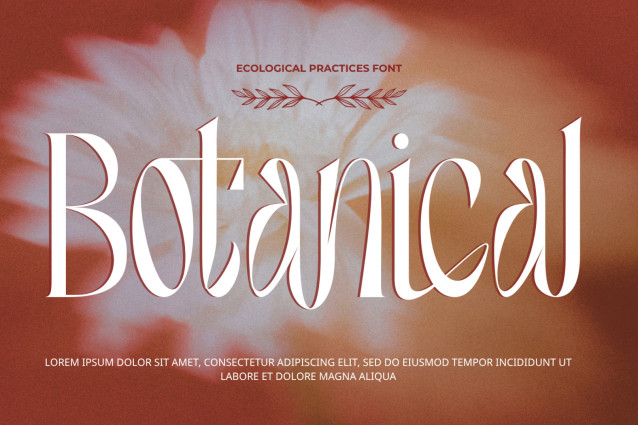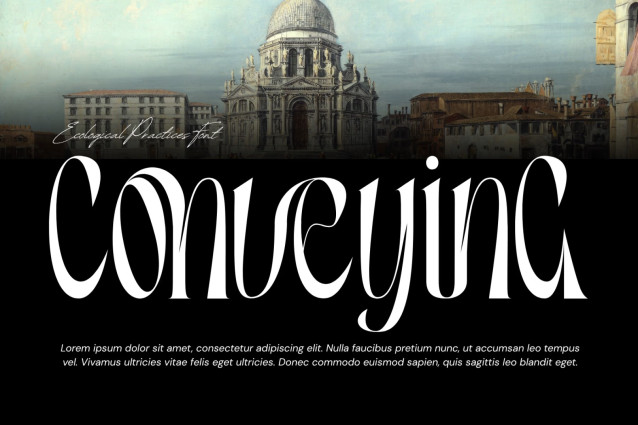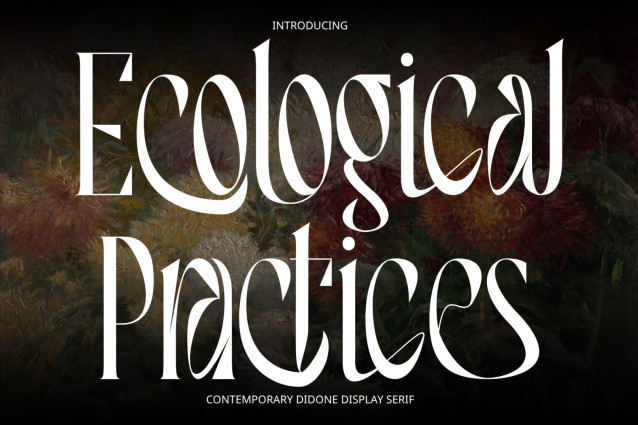
Ecological Practices – Elegant Serif Font
Ecological Practices – Elegant Serif Font is an elegant high-contrast display serif that brings together the sophistication of modern Didone typography with the expressive beauty of Art Nouveau-inspired forms. Characterized by dramatic contrasts between strong sculptural strokes and delicate hairlines, the typeface features tall, graceful proportions, flowing curves, elongated terminals, and distinctive letterforms that create a refined yet unconventional visual rhythm.
With its sophisticated balance of classical elegance and contemporary experimentation, Ecological Practices delivers a luxurious editorial character while maintaining a unique artistic personality. Sweeping curves, subtle decorative details, and beautifully shaped terminals give each word an expressive presence, making the typeface especially striking at large display sizes.